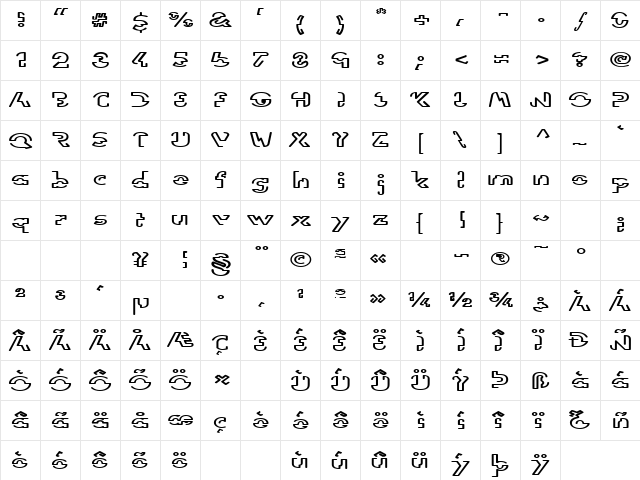
LTVision Extend Regular
Design Context for LTVision Extend Typeface
LTVision Extend is a composed and adaptable typeface that performs quietly and consistently across a wide range of design contexts.